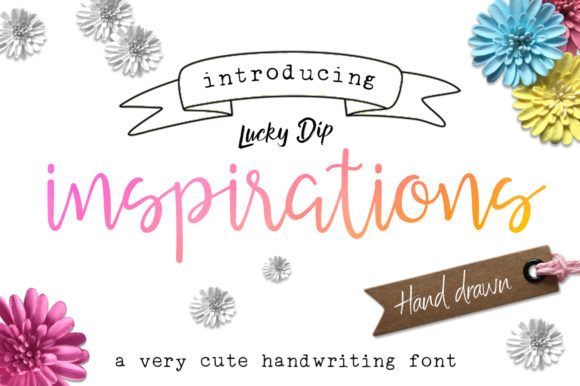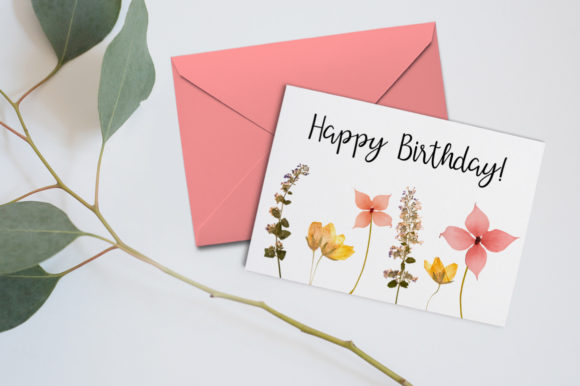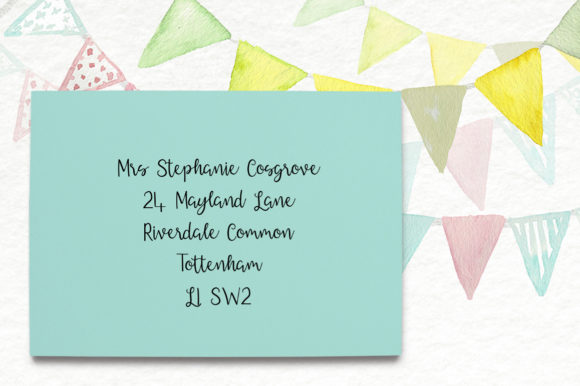
HomeScript FontsInspirations Script Font Script Fonts Inspirations Script Font FacebookXPinterestWhatsApp Inspirations Script Font Poster 2 Inspirations Script Font Poster 3 About Inspirations Script Font Inspirations is an elegant handwritten font with a bold twist. DOWNLOAD NOW People also explored Matteny Angels Font Latasha Keisha Font Happy Monday Font Malliana Font Valerie Font Odelette Script Font De Arloy Font Designed Major Font Love Font 370 0 TagsInspirations Script Font Previous articleElista FontNext articleDeliverance Font LEAVE A REPLY Cancel reply Comment: Please enter your comment! Name:* Please enter your name here Email:* You have entered an incorrect email address! Please enter your email address here Website: Save my name, email, and website in this browser for the next time I comment. Personal Use Free Astercla Personal Use Free Read more about this font Cuttie Personal Use Free Read more about this font Cokobi Personal Use Free Read more about this font Morning Miow Personal Use Free Read more about this font BLOG Transform Your Website: Elevate Your Typography with 7 Best Web Font Generators Are you ready to transform your website's typography from ordinary to extraordinary? Great! Today, we're diving into the world of web font generators, which... Fonts That Capture the Spirit of New York City Free vs Paid Fonts: Why Investing in Premium Fonts Is Worth It Best Fonts for T-Shirt Design – Top 2025 Picks